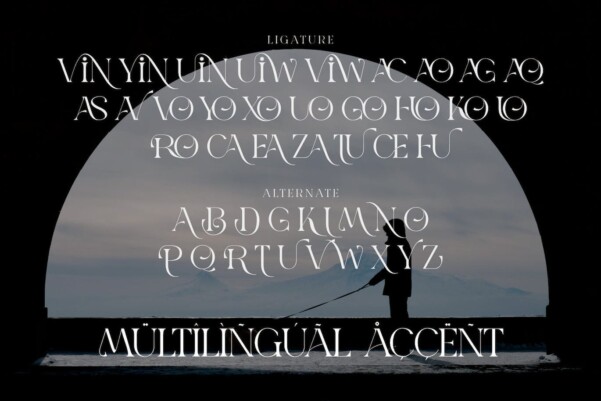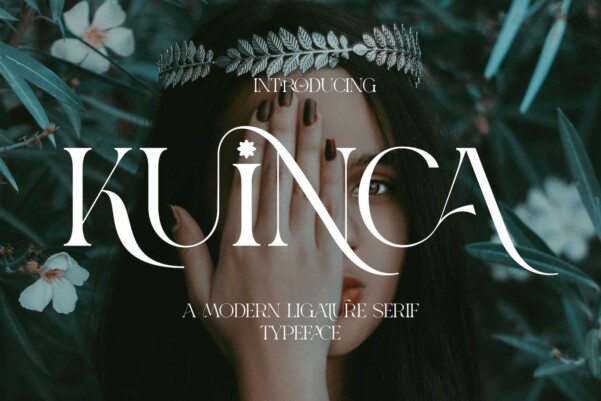
Kuinca Font
Kuinca Font is a unique and very elegant font for branding and logo design. An elegant Serif typeface combined with a chic, modern style. This type of font is perfect for your different needs like branding projects, logos, wedding designs, social media posts, advertisements, product packaging, product designs, labels, photography , watermarks, invitations, stationery and any project created with a high level of readability. You will not be disappointed if you buy